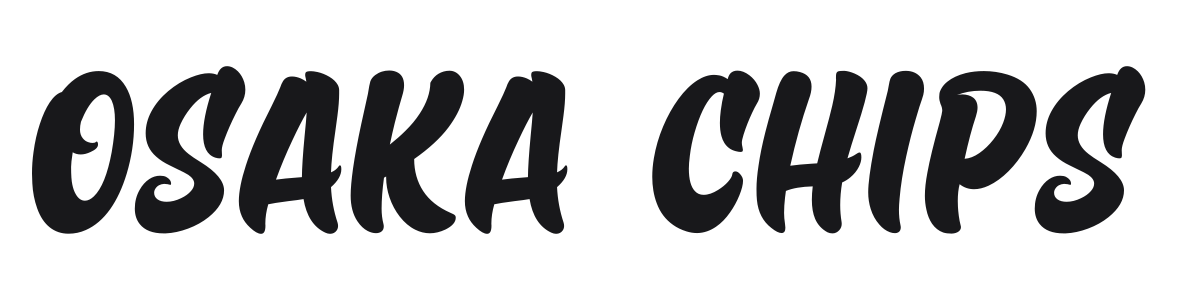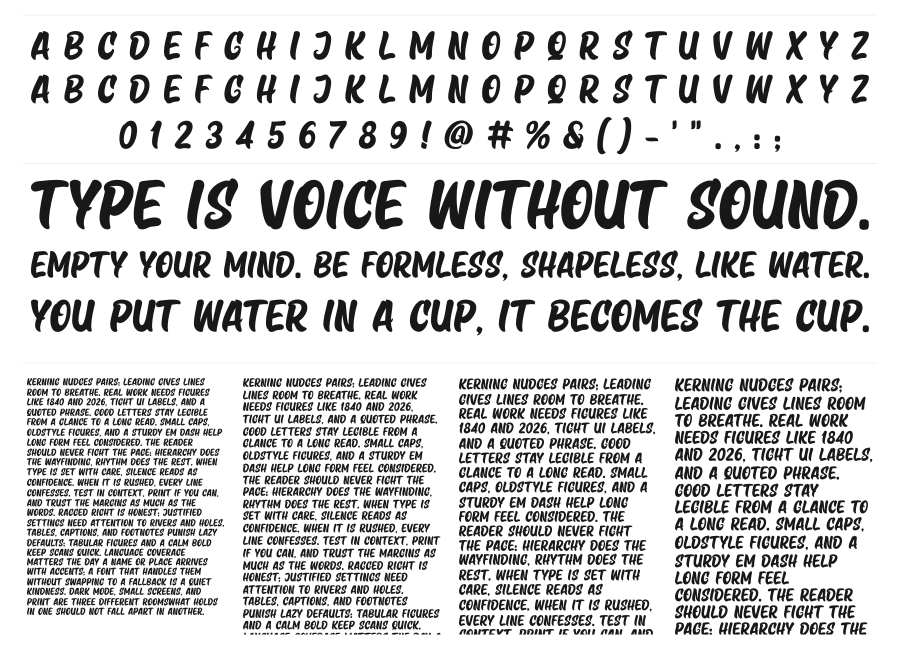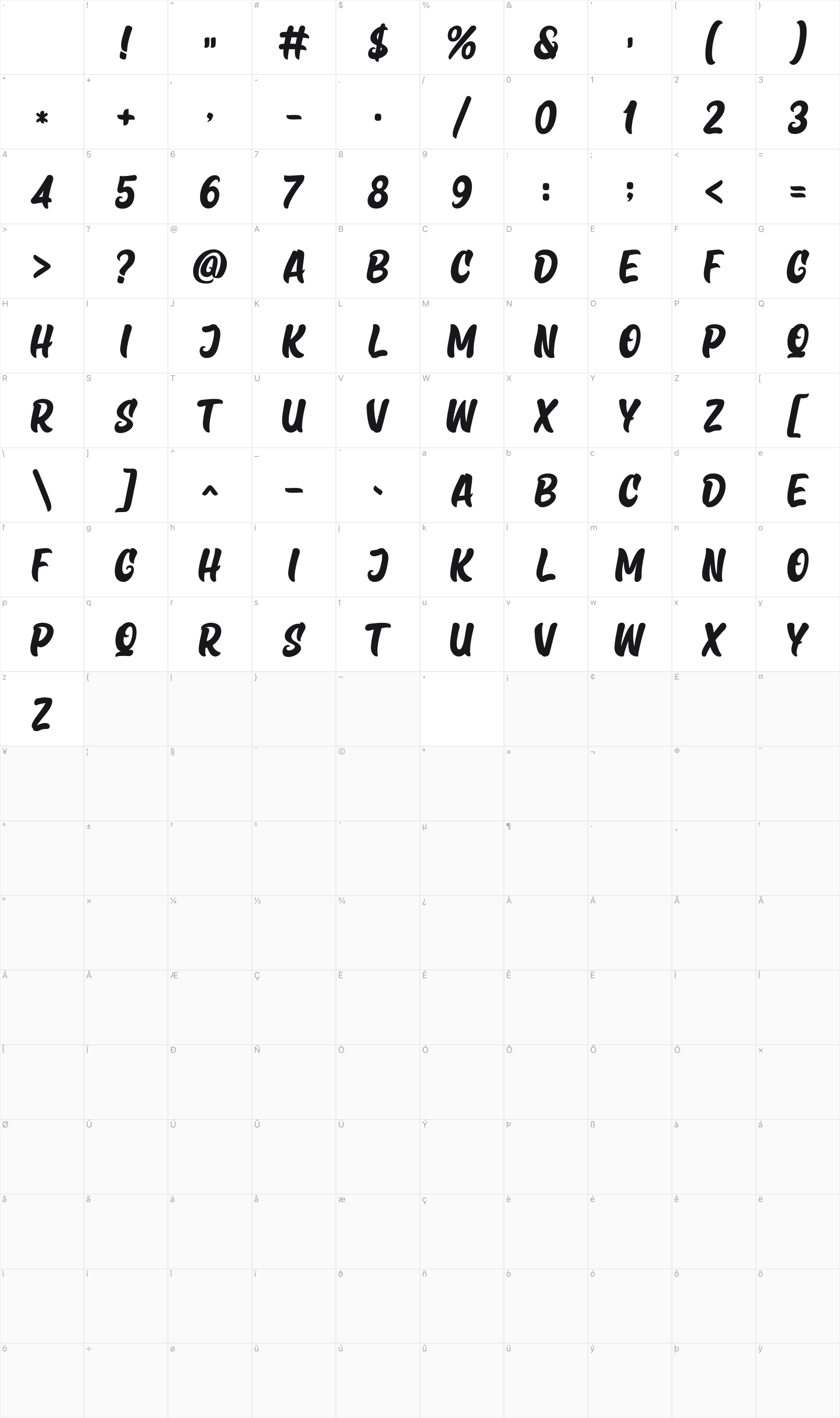
Osaka Chips
Osaka Chips is a bold, slanted brush script that leans hard into casual, hand-painted energy. Thick rounded strokes and a tight flow between characters give it an informal, upbeat personality that works well for food branding, event posters, and youth-oriented packaging. The heavy weight and strong slant make it commanding at large sizes without losing its handmade warmth.